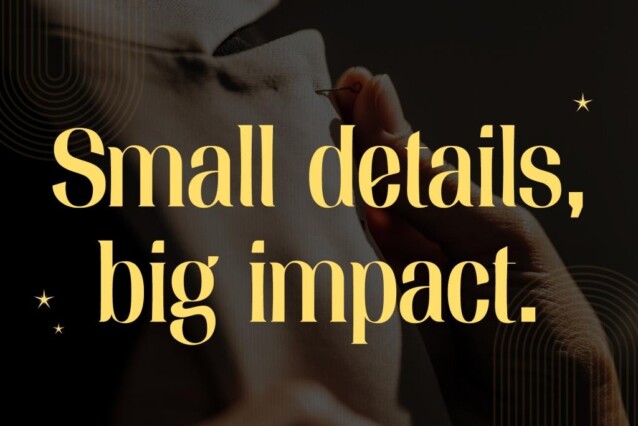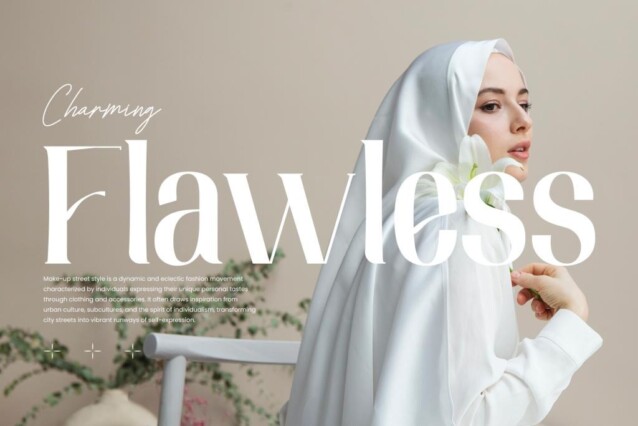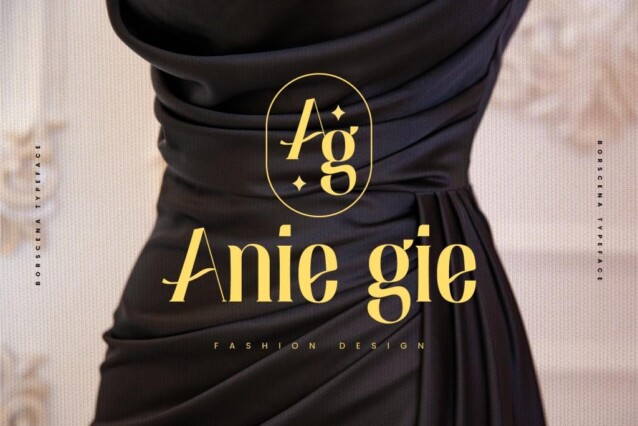
Borscena Font
Borscena Font is a contemporary vintage serif with style based on 18th Century European aesthetics that is both elegant and unique with smooth and sharp curves and beautiful ligatures. Its meticulously crafted letterforms feature exquisite, ornate detailing and graceful, high-contrast strokes, making it the epitome of refined typographic design. Borscena’s regal presence and intricate serifs harken back to the golden age of print, offering a sense of opulence and exclusivity, ideal for conveying a sense of prestige and tradition in branding, editorial, or decorative applications. This font stands as a symbol of timeless beauty and an embodiment of the grandeur of bygone eras, making it the perfect choice for projects seeking a touch of sophistication and sophistication.